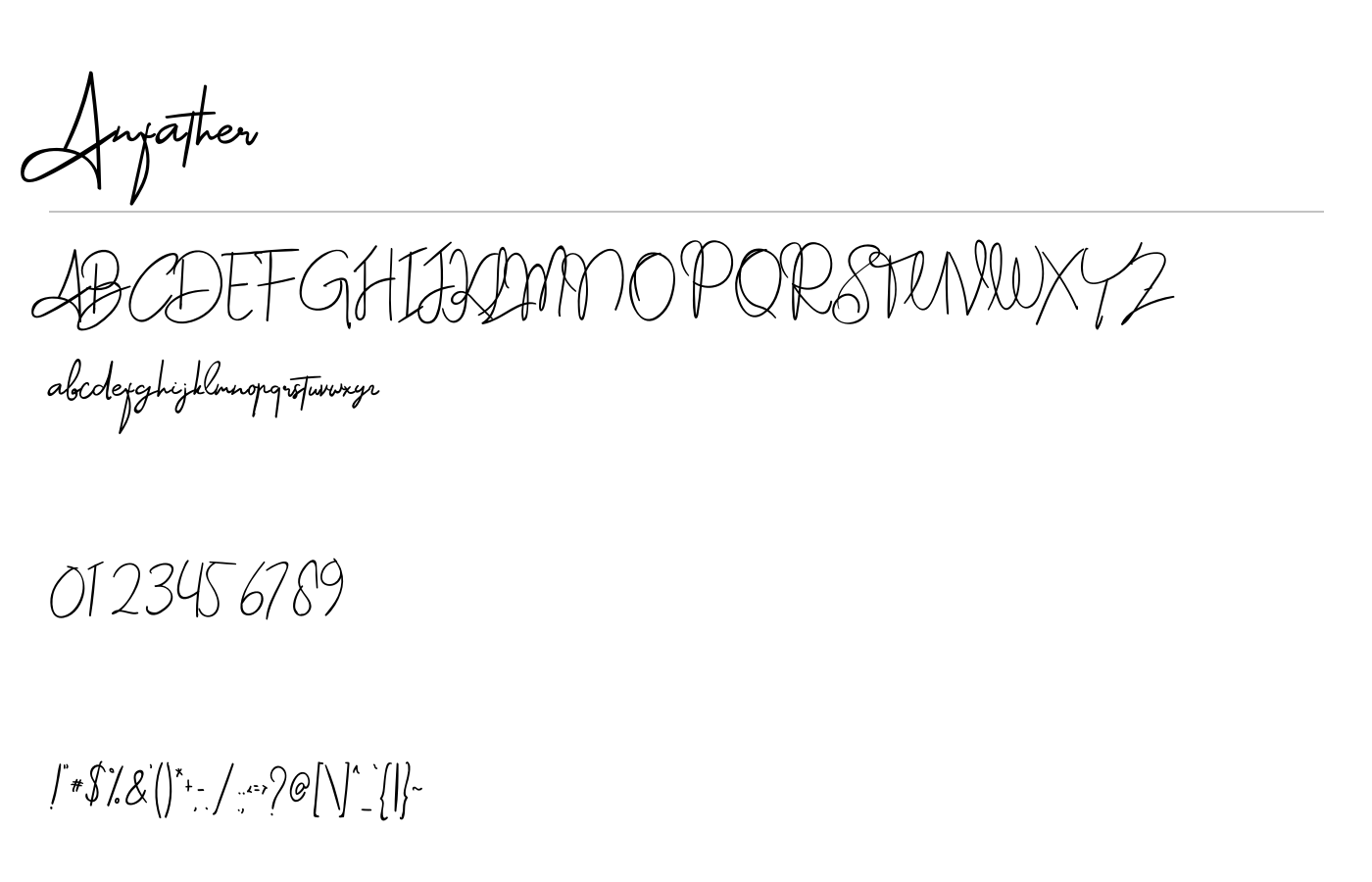
Anfather is a delicate, handwritten script font with slender, flowing lines that create an elegant and personal feel. Its airy, slightly irregular letterforms convey a casual yet sophisticated style, making it perfect for invitations, branding, and creative projects that seek a hand-crafted, artistic touch. This font works well where a unique, expressive personality is desired without sacrificing readability.
Anfather Font